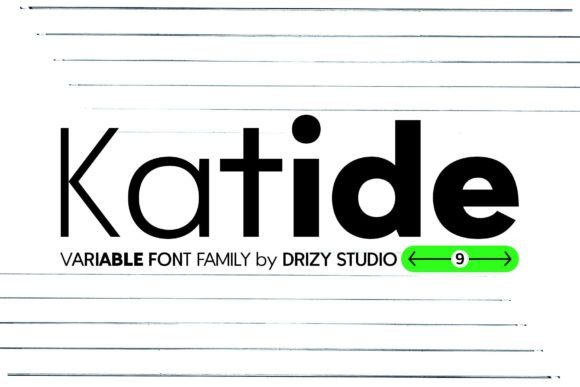
Journey into the world of typography with Katide Font, a modern and fresh sans serif font crafted by the visionary designers at Drizy Studio. This remarkable font exudes elegance and simplicity, seamlessly adapting to a myriad of designs, propelling them to new heights of visual appeal. Katide Font's versatility knows no bounds, effortlessly complementing both playful and sophisticated design concepts. With its clean lines and crisp curves, this font breathes life into logos, branding projects, web designs, and countless other creative endeavors.
Dive into the depths of Katide Font's character set and discover a treasure trove of OpenType features that ignite your imagination. Experiment with ligatures that dance across the page, bringing a touch of playful sophistication to your designs. Harness the power of stylistic alternates to add depth and dimension to your typography, creating compositions that captivate and inspire.
Let Katide Font be your creative muse, transforming ordinary designs into extraordinary works of art. Its versatility shines through, whether you're crafting elegant wedding invitations, sleek business cards, or eye-catching social media graphics. Katide Font possesses an innate ability to elevate your designs, enchanting viewers with its timeless beauty and modern flair.
Embrace Katide Font's versatility and make it an integral part of your creative toolkit. Its boundless potential awaits your exploration, inviting you to embark on a journey of visual storytelling that transcends the ordinary. Unleash the power of typography and watch your designs flourish with Katide Font, the font that ignites your imagination and captivates your audience.